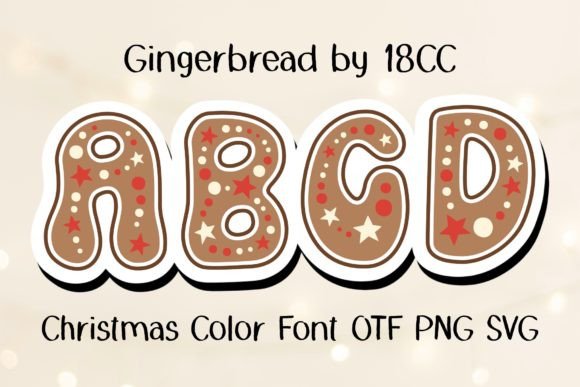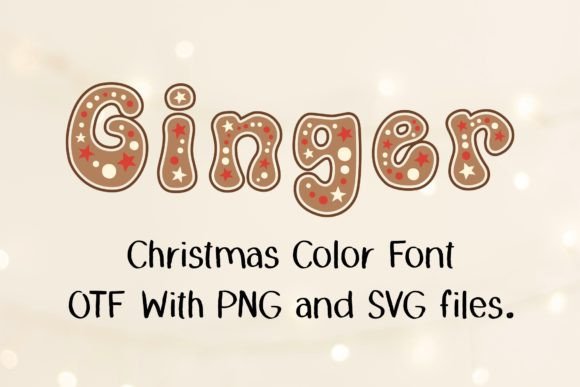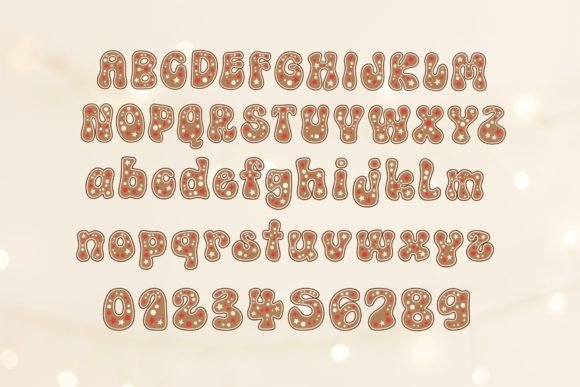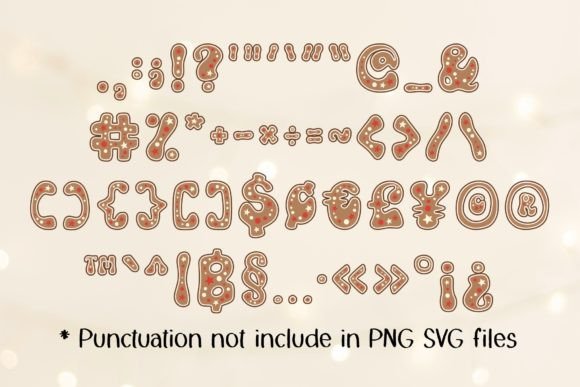
Gingerbread Font: A Playful & Cute Display Font for Cricut & DIY Projects
About the Gingerbread Font
Elevate your designs with Gingerbread Font, a font that combines sophistication with readability. Gingerbread is a cute and delicious color font. This font is the perfect fit for all of your t-shirts, social media, crafty DIY projects, and much more!
Gingerbread’s playful, rounded forms make it ideal for projects needing a friendly, approachable feel. It excels in headlines, short text blocks on packaging, and social media graphics. Consider it for branding related to food, children’s products, or crafts. Avoid using it for body text or UI elements where readability over extended lengths is crucial.
Pairing Gingerbread with a clean sans-serif like Open Sans for body copy creates a balanced contrast. For a more playful feel, consider pairing it with a script font like Great Vibes, while a geometric sans-serif such as Montserrat adds a touch of modern sophistication.
Its core personality is undeniably cheerful and informal, making it unsuitable for serious or corporate applications. However, its charm is perfect for adding a touch of sweetness and whimsy to the right projects.